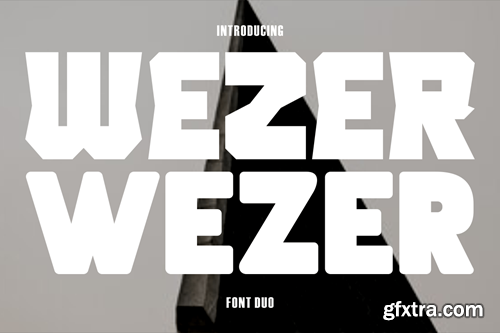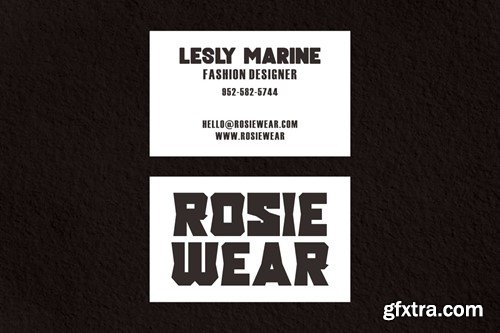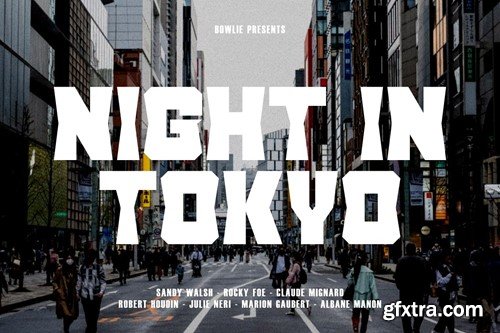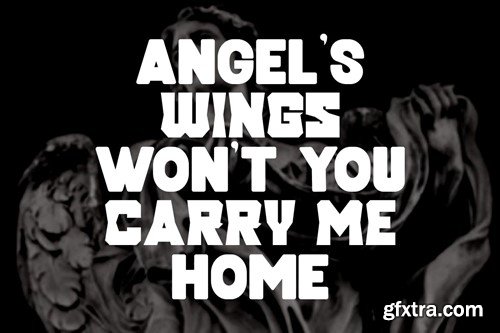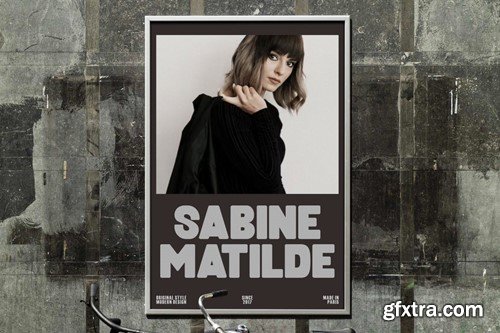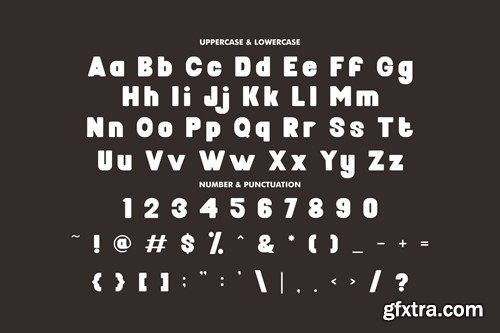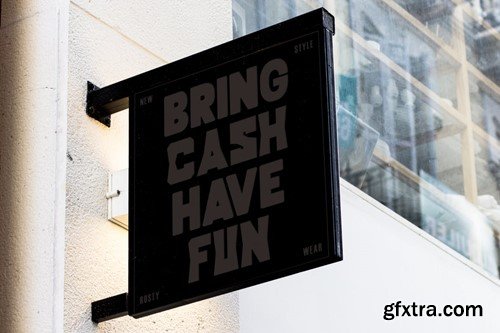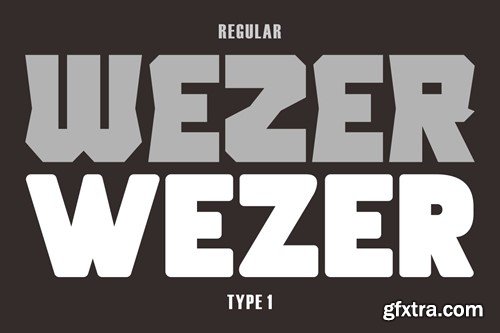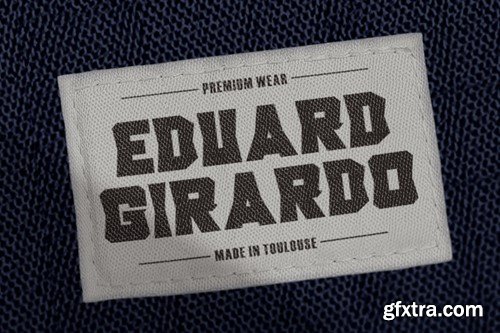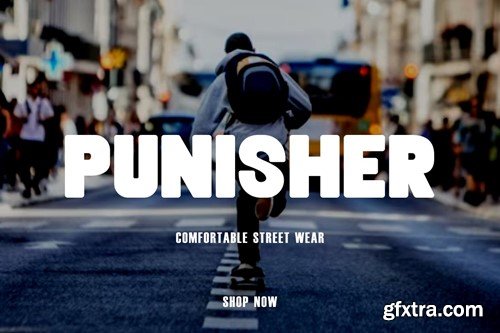
Wezer – 黑体粗体字体 Duo 967CHPG
Wezer – Display Bold Font Duo The Wezer - Display Bold Font Duo is a unique and bold typeface that breaks away from the conventional font styles. It offers two distinct versions: rounded and display, both designed to bring something entirely fresh to the table. The purpose behind creating this font was to introduce a one-of-a-kind typeface that stands out in the design world. Wezer is the ideal choice for projects that require a touch of quirkiness and originality, making it perfect for logos, branding, headlines, posters, titles, billboards, banners, and any design that dares to be different. In Package : Feature : Note : The preview mock-up, element, shadow, image or graphic stock is not included in the download file. It’s only for presentation purpose. Thank you